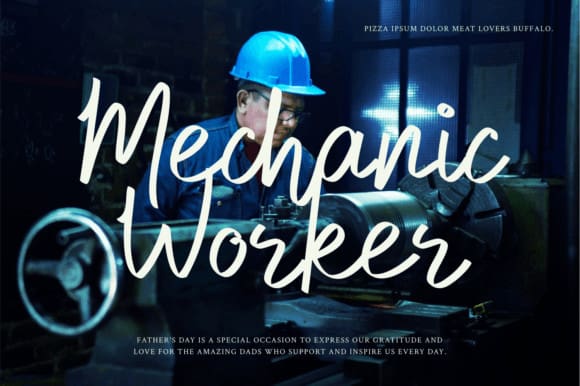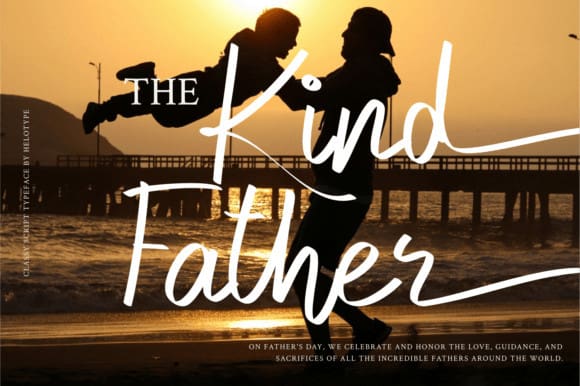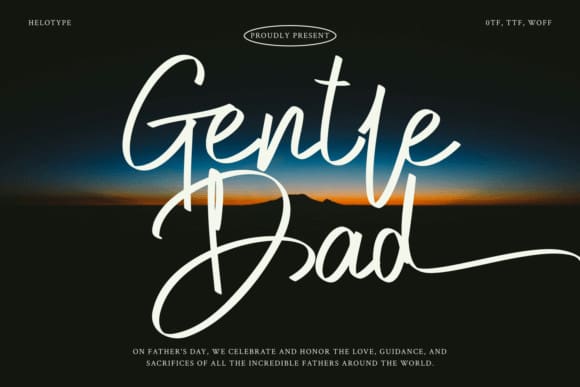
Gentle Dad Font
Gentle Dad Font – This stunning script eloquently encapsulates the profound emotions tied to fatherly love. Use Gentle Dad to infuse your Father’s Day cards with genuine sentiment, add a personal touch to mugs and t-shirts, or lend a unique and exclusive flair to distinctive gifts.
Equipped with a comprehensive range of uppercase and lowercase letters, ligatures, stylistic alternatives, numbers, and symbols, the Gentle Dad font ensures simplicity in its usage while still allowing for immense design flexibility. Let GentleDad be your creative sanctuary, a comprehensive script solution that uniquely transforms your imaginative ideas into reality.